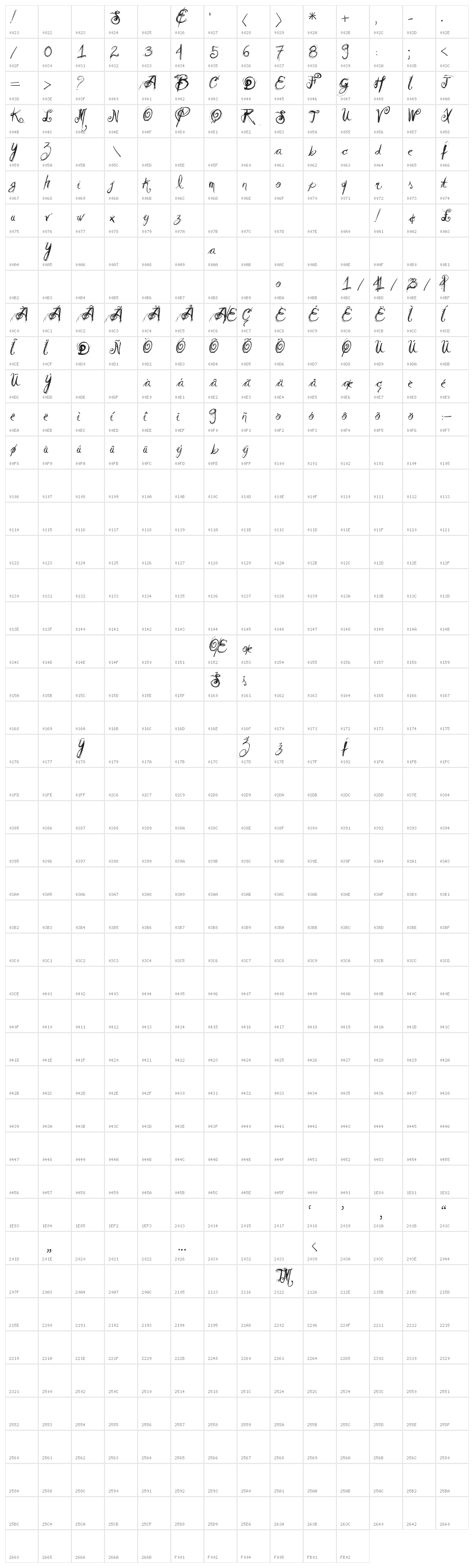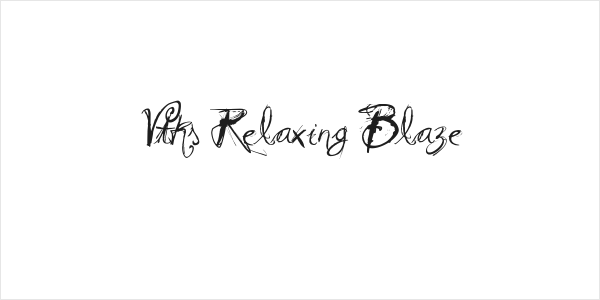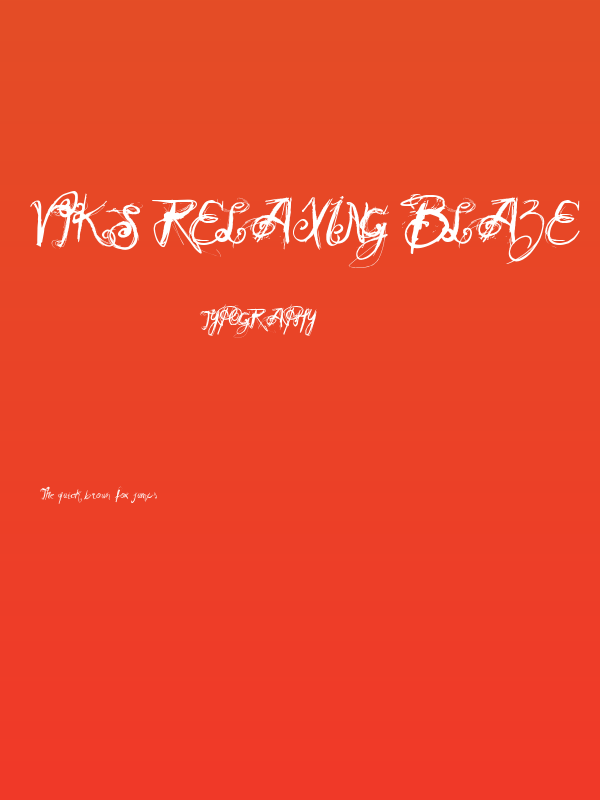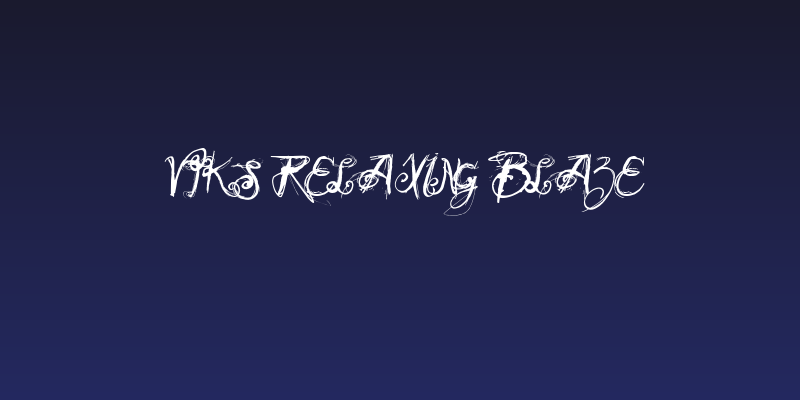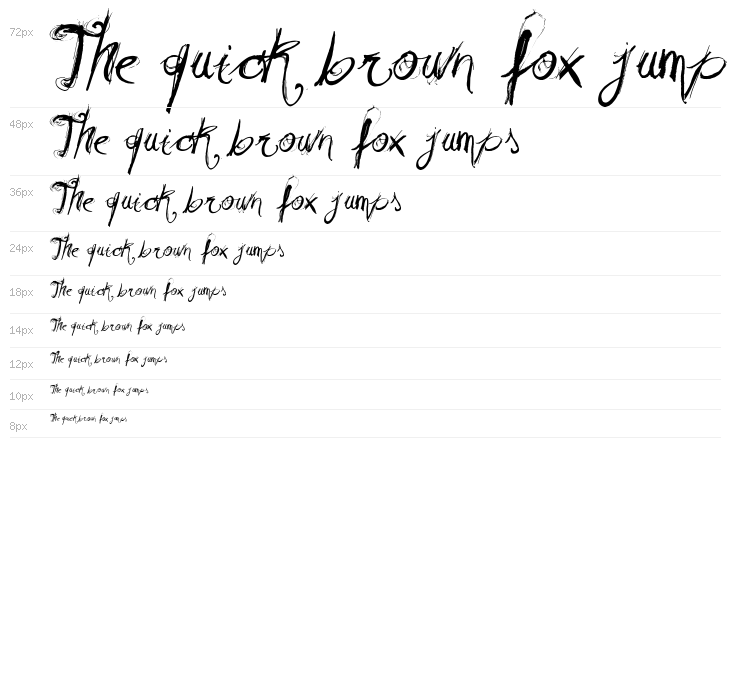
Vtks Relaxing Blaze Font
Vtks Relaxing Blaze Description
This font exudes a dynamic and artistic flair, characterized by its expressive and fluid strokes. The letters are crafted with a sense of movement, featuring swirling lines and intricate details that give it a hand-drawn appearance. The uppercase letters are bold and elaborate, while the lowercase letters maintain a consistent style with slightly more subtle curves. Numbers and special characters follow the same artistic theme, ensuring a cohesive look across all elements. The font's unique style makes it stand out, ideal for projects that require a touch of creativity and individuality.
| Overall Style | Artistic, Decorative |
| Use Case | Logos, Posters, Artistic Branding |
| Proposed Projects | Ideal for creative projects such as posters, album covers, artistic branding, and event invitations. |